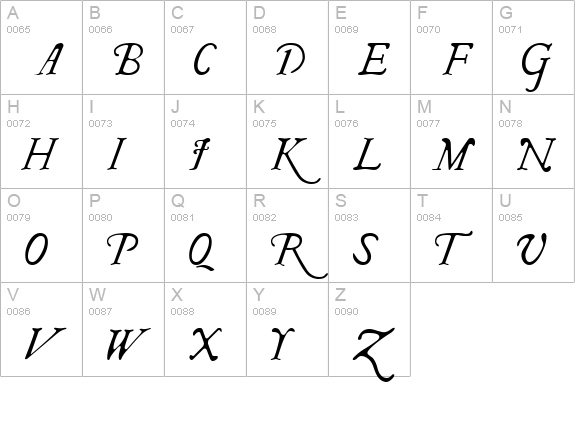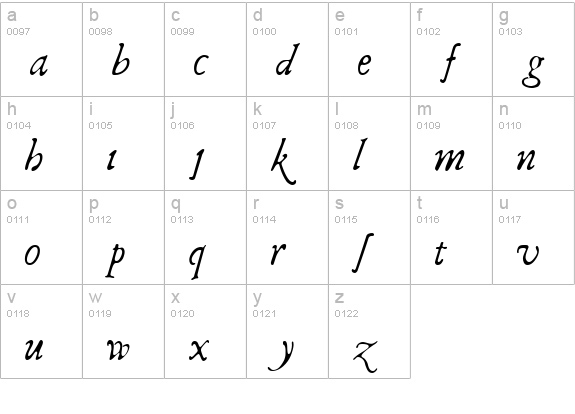
I Regular Font Details
I Regular is the standard, neutral variant in the I typeface family \xE2\x80\x94 well suited to general body text, paragraphs, and standard typographic work.
Introducing I Regular font, a stunning typeface that effortlessly combines modernity with timeless elegance. This versatile font is perfect for a wide range of design projects, from branding and advertising to editorial layouts and web design. I Regular features clean lines and a balanced letterform, making it highly legible and easy on the eyes. Its well-defined curves and subtle details add a touch of sophistication, making any text appear polished and refined. One of the best things about I Regular font is that it is available free of charge at FontsMarket.com. This means that you can effortlessly enhance your designs without breaking the bank. Whether you're a professional designer or a passionate hobbyist, this font is a valuable addition to your typographic arsenal. With its extensive character set, I Regular font supports multiple languages, allowing you to create captivating designs for a global audience. Its versatility is further exemplified by its compatibility with various design software and platforms, ensuring a seamless integration into your creative workflow. So why wait? Download I Regular font today and unlock a world of design possibilities. Whether you're working on a personal project or a professional endeavor, this font will elevate your designs to new heights. Don't miss out on this incredible opportunity to access a high-quality font for free. Visit FontsMarket.com and start creating stunning visuals with I Regular font now!